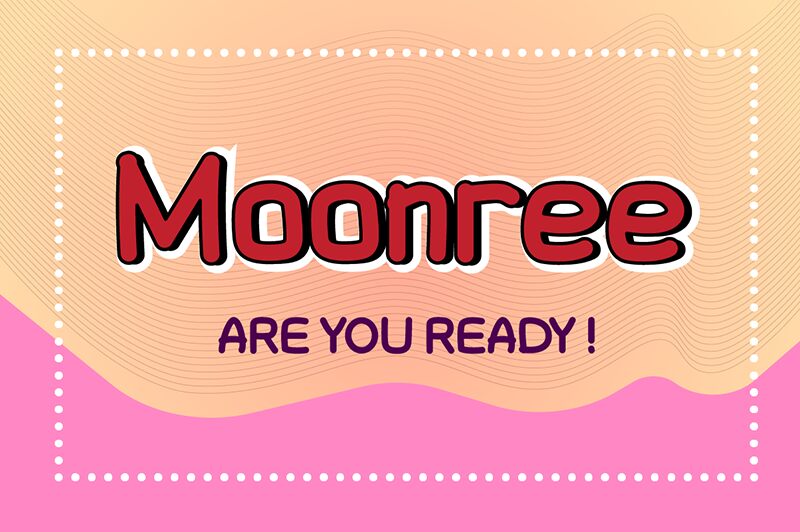
Moonree font by Dibyo Art is a free font with varied letter shapes, influenced by handwritten text. Its characters have a modern style with a playful edge that makes it a peculiar typeface. It is approachable, vibrant, energetic and will surely catch viewers’ attention. It freely combines closed and open characters for an organic flow.
Moonree font is ideal for cartoons, comics as well as magazine covers, children-oriented advertising, logos, and distinctive packaging. Its rounded logo will also shine on logos and cosmetics labels for a youthful, modern, and informal brand voice.